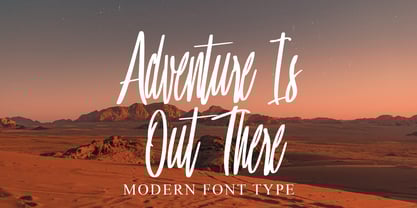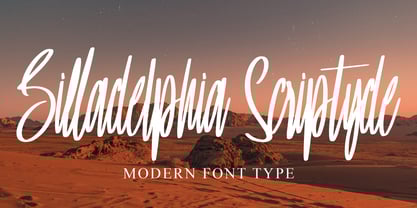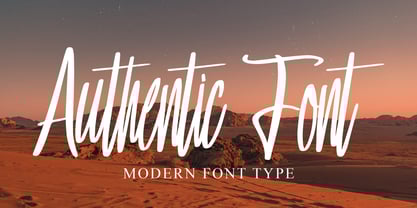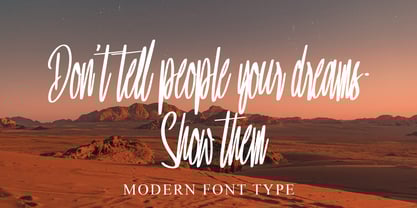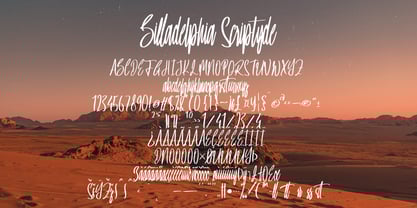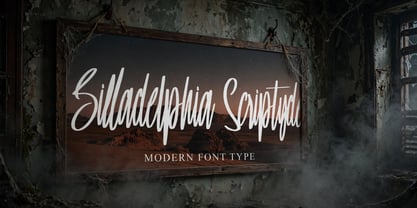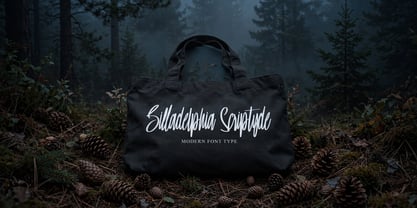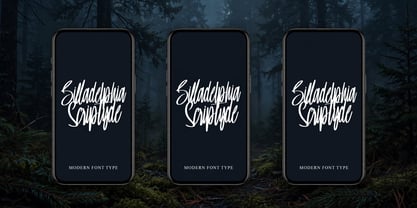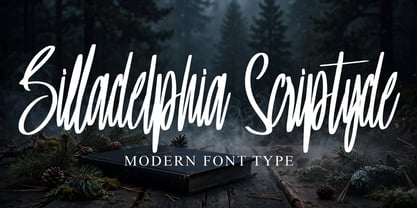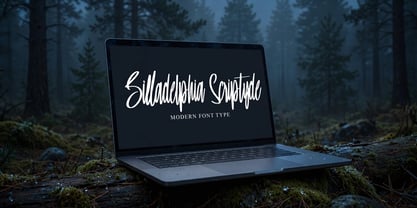
Billadelphia Scriptyde
The Billadelphia Scriptyde Font Family was designed by Dhoni Trihatmoko and published by Ayska. Billadelphia Scriptyde contains 1 styles.
Dive into the enchanting world of Billadelphia Scriptyde, a typeface that harmoniously blends modern sophistication with the raw charm of handwritten scribbles. The meticulously crafted Billadelphia Scriptyde exudes tasteful elegance and panache, instantly elevating your creative projects. The ideal typeface for enveloping your blog audience, adding a touch of charm to your digital journal, infusing life in your invitations, or expressing your deeply-felt emotions through customized cards. Billadelphia Scriptyde is versatile and carries the nostalgic allure of old-school scrapbooks paired with a stylish contemporary twist suitable for interior design. It enriches all digital mediums with its artistic charisma. Rooted in authenticity, the Billadelphia Scriptyde ignites your imagination, making way for extraordinary outcomes. Harness the multifaceted nature of Billadelphia Scriptyde, tap into its gentle might, and see your artistic vision metamorphose into unique masterpieces.
Billadelphia Scriptyde